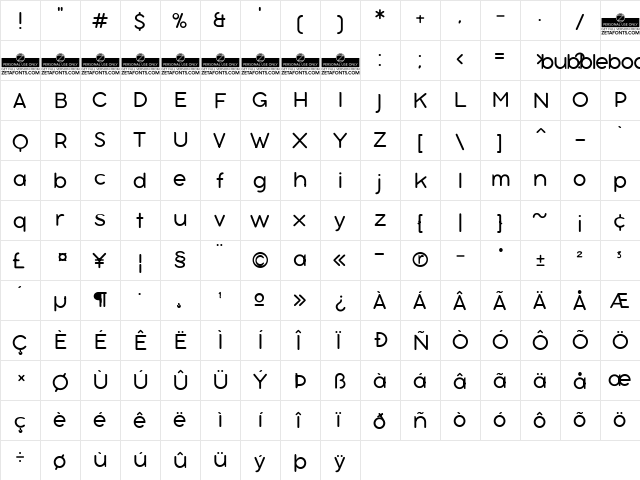
Bubbleboddy Neue Trial Light
| Foundry | Zetafonts |
| Designer | Francesco Canovaro |
Design Context for Bubbleboddy Neue Trial Typeface
Bubbleboddy Neue Trial has an approachable, lighthearted character — its loose, expressive forms are well-suited to children's content, casual branding, and fun-first design.
Font Pairing: Pairs well with a rounded or humanist sans for body copy, maintaining the friendly tone without relying on Bubbleboddy Neue Trial to carry extended reading.
Pro Tip: Avoid using Bubbleboddy Neue Trial for long passages of text — it works best for headlines, labels, and short calls to action.